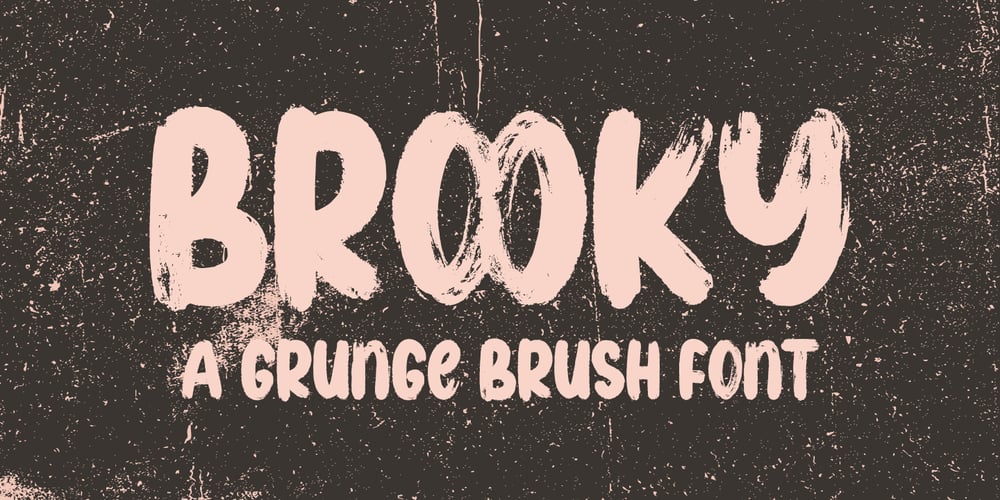
Brooky Font Family was designed by khaidir and published by Gatype. Brooky contains 1 styles and family package options. Brooky is a modern, handwritten font, with stylized characters that look unique but are attractive for use in a variety of modern designs such as clothing, invitations, book titles, stationery designs, quotes, branding, logos, greeting cards, t-shirts, packaging designs. , posters and more.